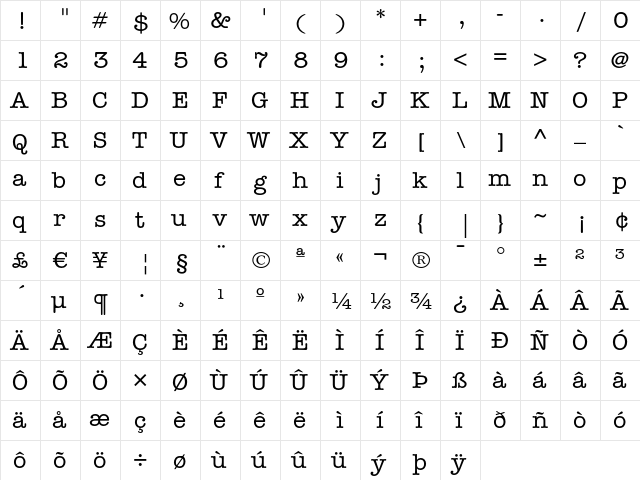
ITC American Typewriter LT Medium Font Preview
Design Context for ITC American Typewriter LT Typeface
ITC American Typewriter LT uses fixed-width spacing throughout, giving it the structured, systematic character associated with coding environments and technical documentation. Its slender proportions lend an understated elegance to any composition.
Pro Tip: Pair ITC American Typewriter LT with a proportional sans for UI contexts where code-style labels and regular body copy need to coexist.